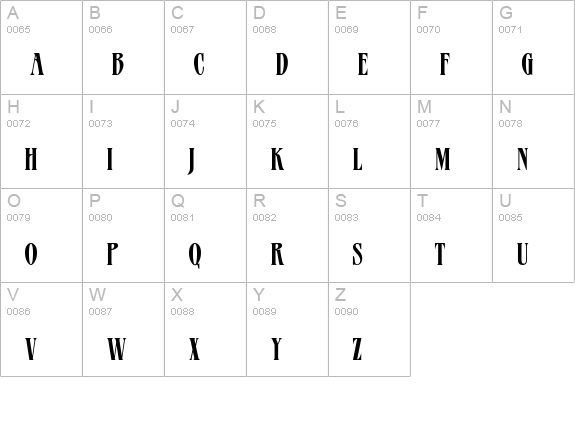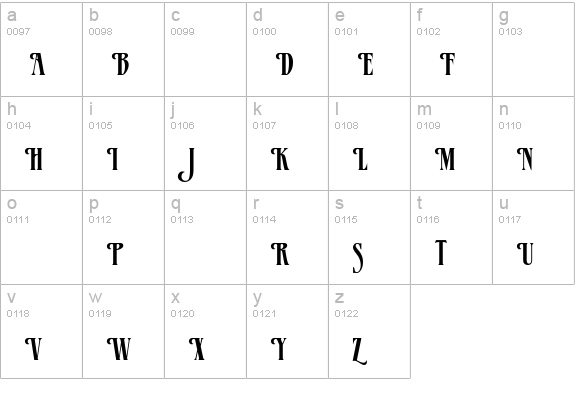
MazamaPlain Font Details
MazamaPlain is a versatile and modern font that combines simplicity with elegance. Its clean lines and sleek design make it perfect for a wide range of projects, from branding to editorial design. The font exudes a sense of sophistication and professionalism while maintaining a touch of creativity. What sets MazamaPlain apart is that it is not only visually appealing but also incredibly versatile. Whether you are looking to create a striking logo, elegant wedding invitation, or sleek website design, this font has got you covered. And the best part? MazamaPlain is completely free to download at FontsMarket.com. So you can bring a touch of class and style to your projects without breaking the bank. Get your hands on MazamaPlain today and take your designs to the next level.